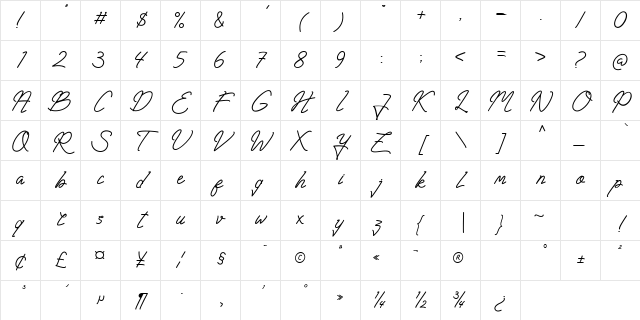
Complete Huntsel Script Reguler glyph index. Displaying only characters natively supported by Huntsel Script Reguler font.
Huntsel Script flows with the natural rhythm of handwritten lettering, making it ideal for designs that call for warmth and personal expression.
Font Pairing: Combine Huntsel Script with a simple geometric sans for maximum contrast - the tension between flowing curves and clean structure is a classic typographic pairing.
Pro Tip: Use Huntsel Script for short runs of text - names, titles, or taglines. Extended body copy in script faces tires the eye quickly.